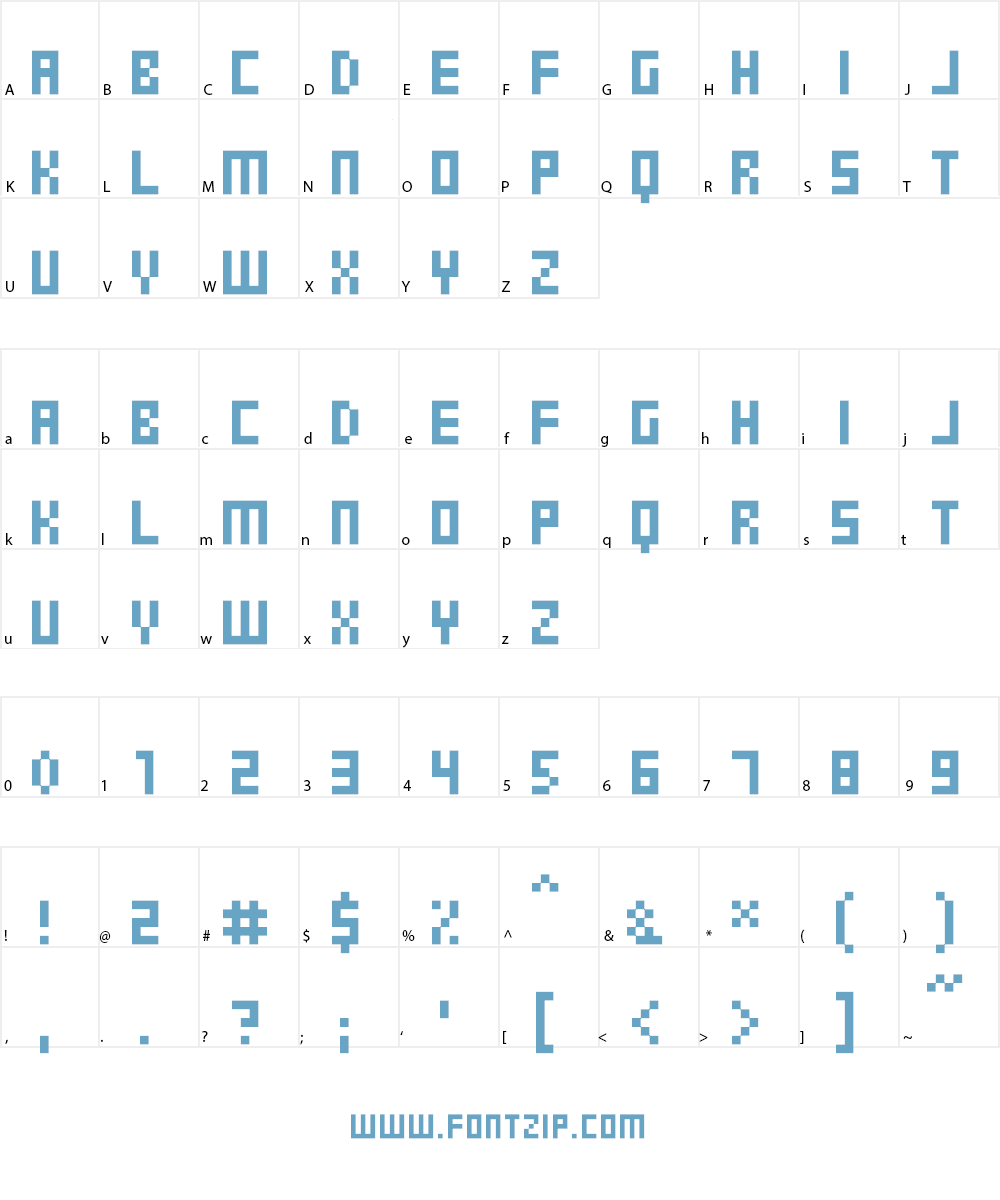
Pixel Gosub is an extremely primitive pixel font based on the onboard lettering used in many early microcomputers such as the original Timex Sinclair. Includes full alphabet, extended punctuation, euro.